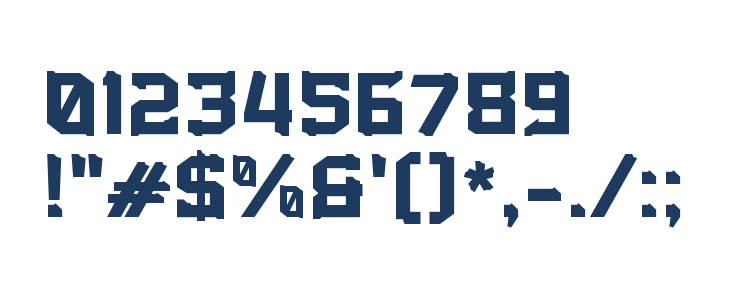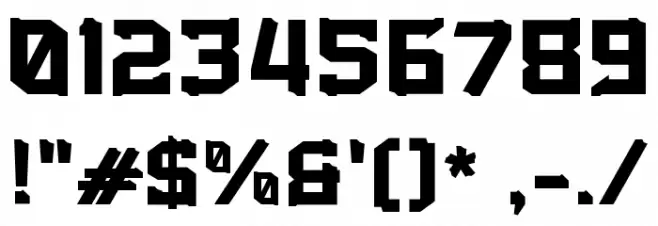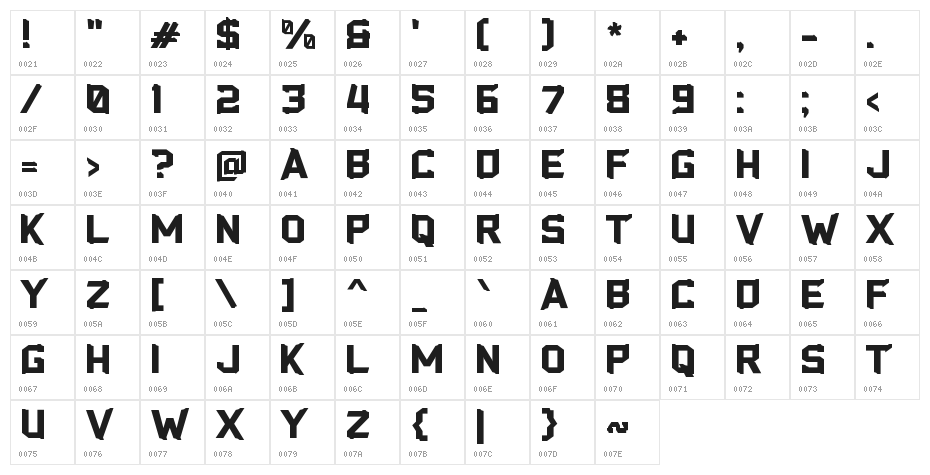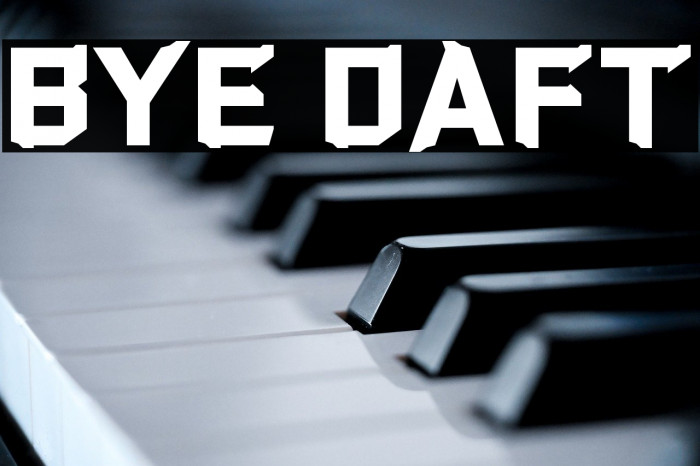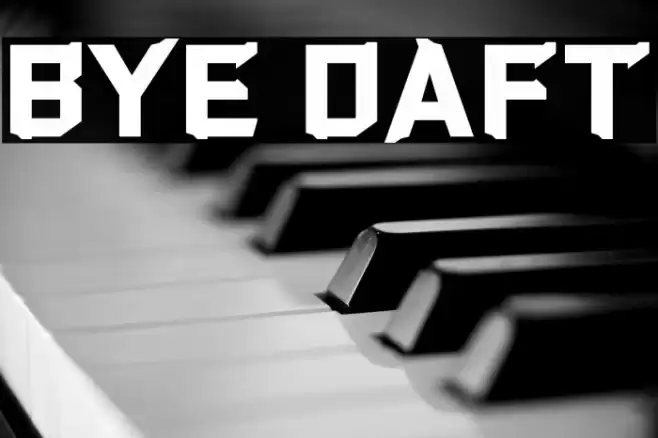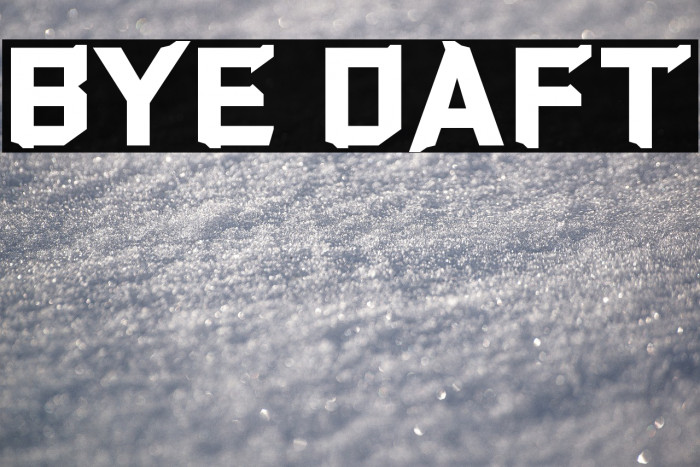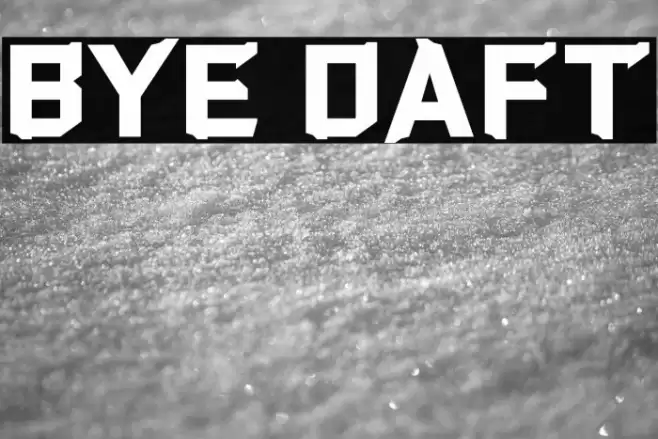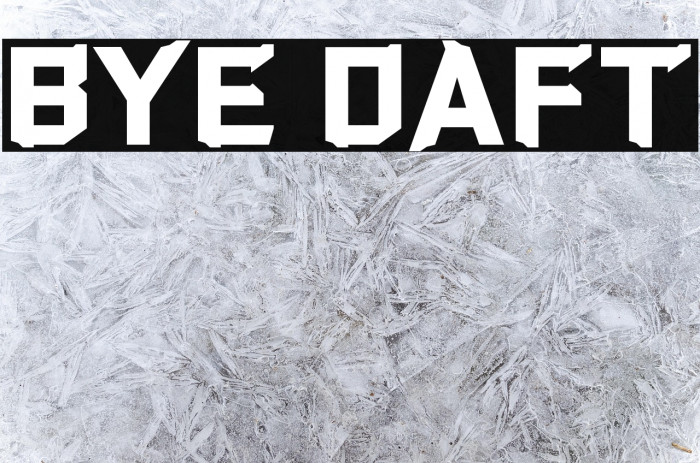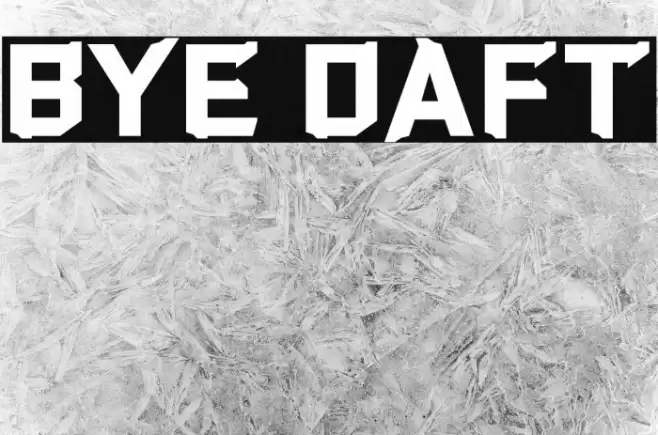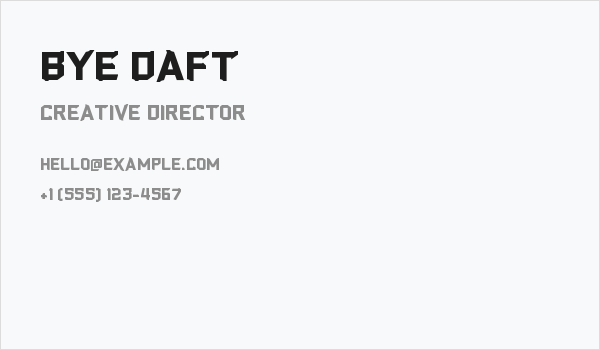
Bye Daft Font
Bye Daft Description
This font features a bold and angular design, characterized by sharp edges and a geometric structure. The uppercase letters are uniform in height, creating a cohesive and structured appearance. The numbers and special characters maintain the same angular style, ensuring consistency throughout. The font's boldness and unique design make it stand out, ideal for projects that require a strong visual impact. Its geometric nature gives it a modern and edgy feel, suitable for contemporary designs.